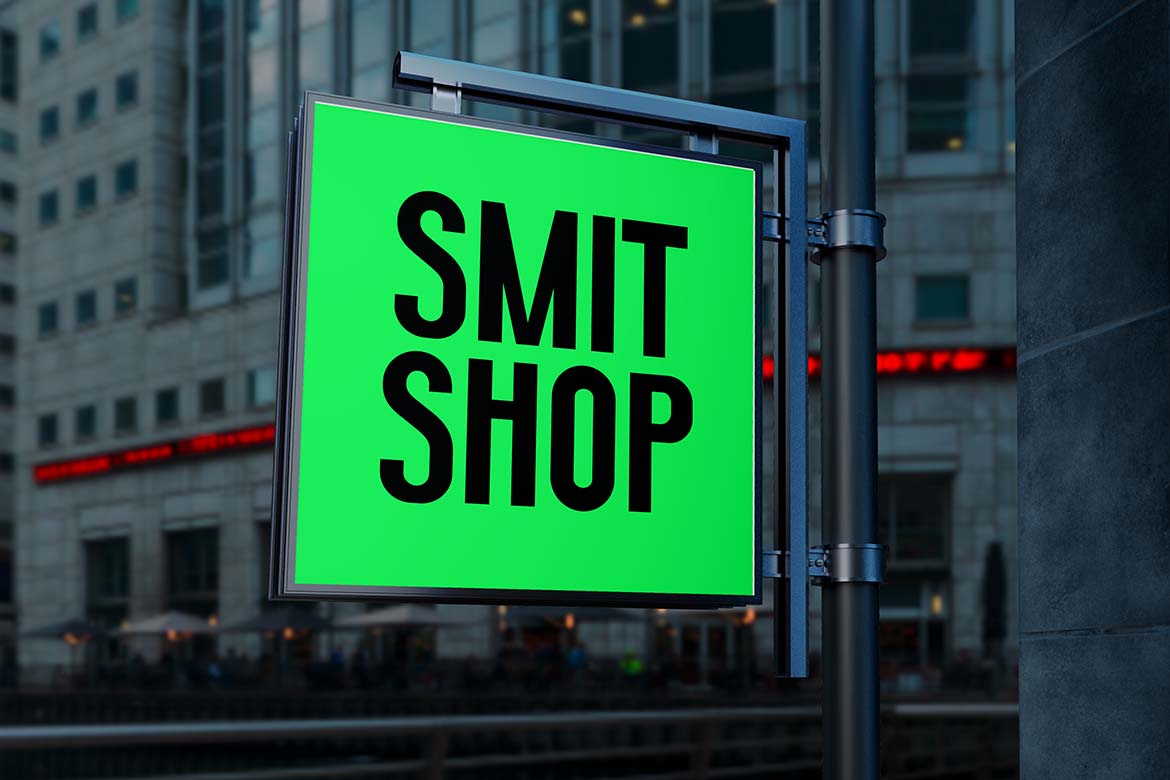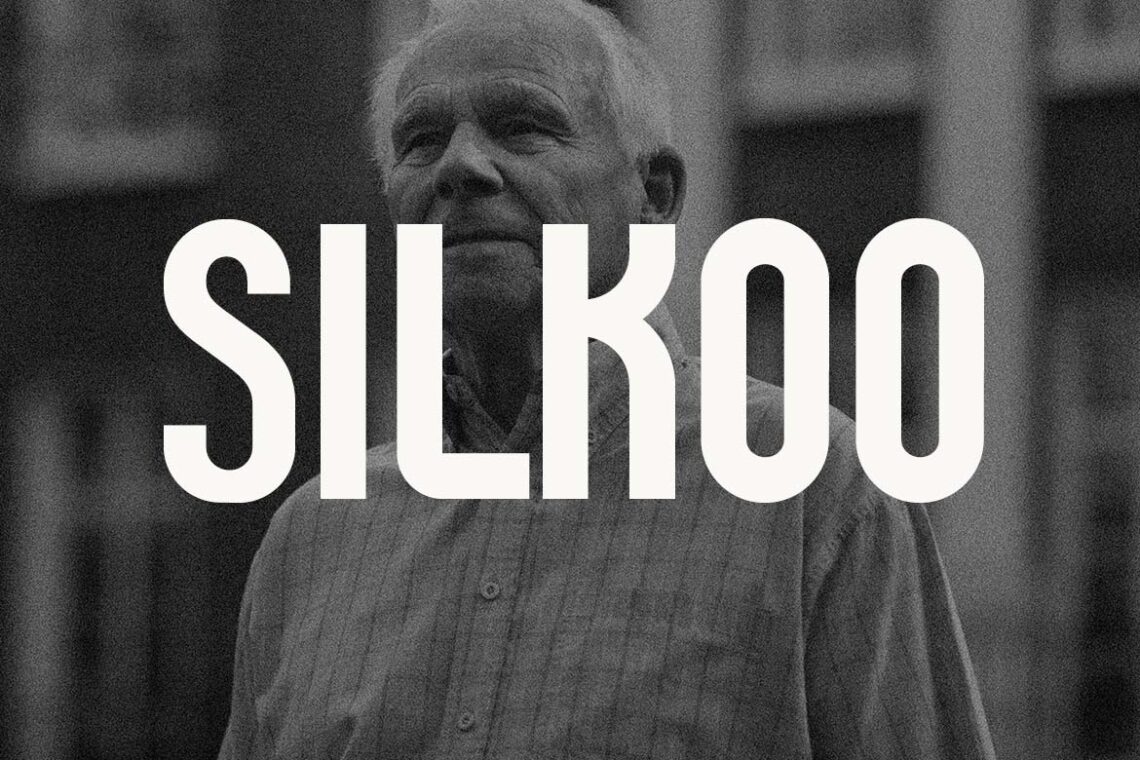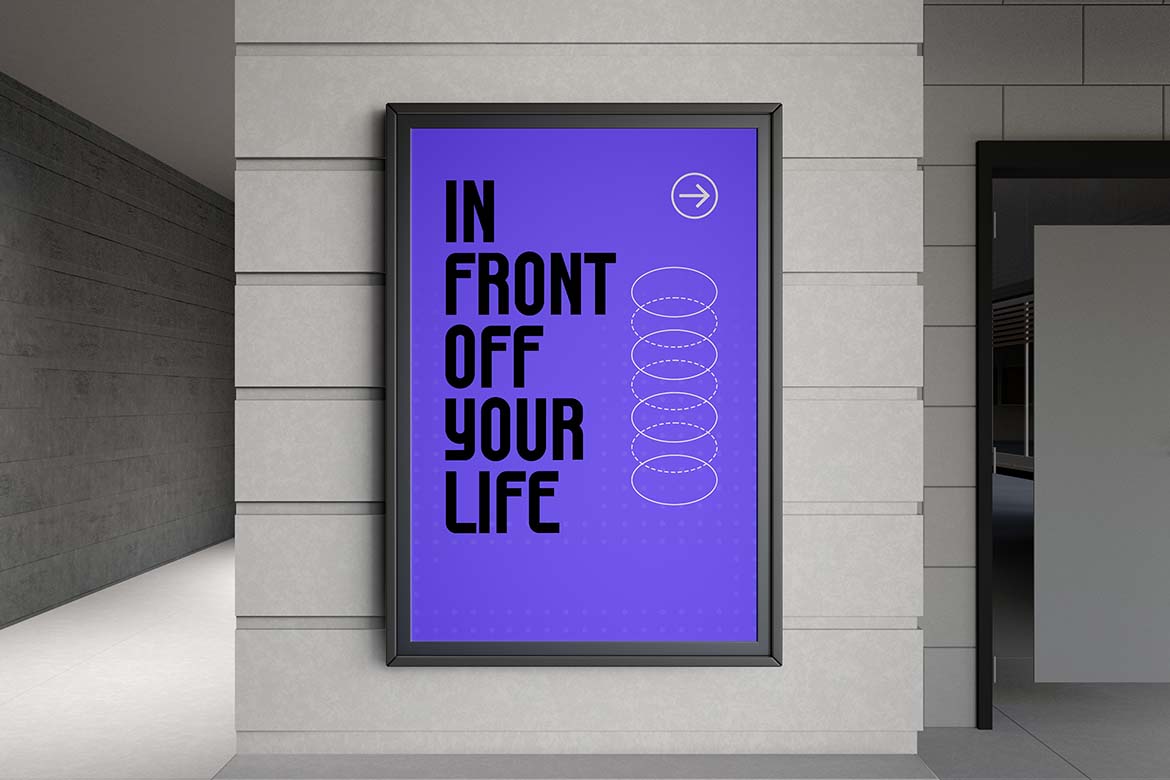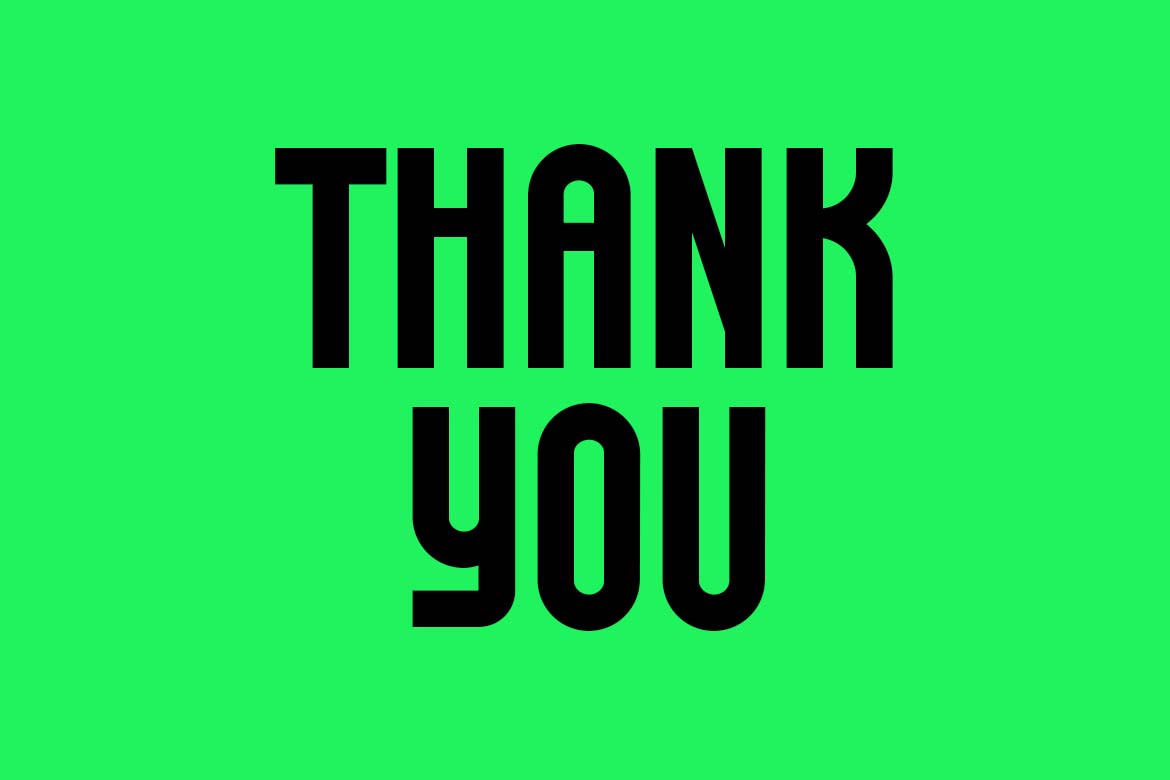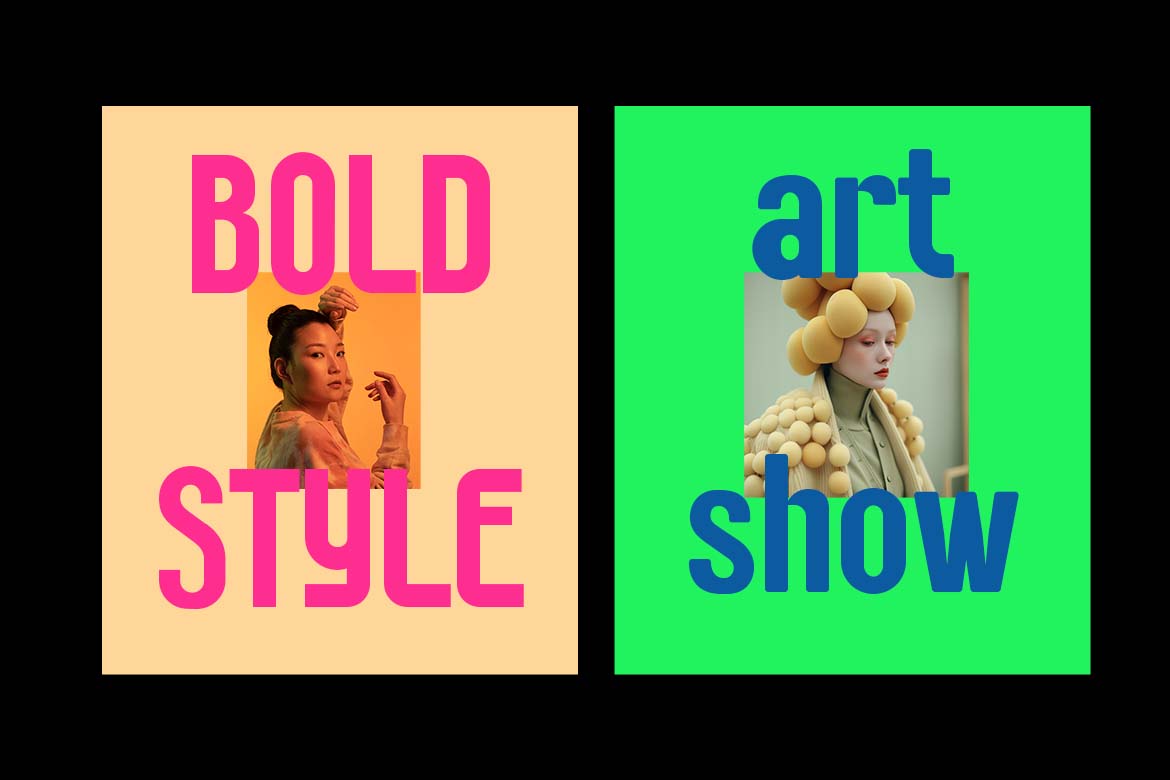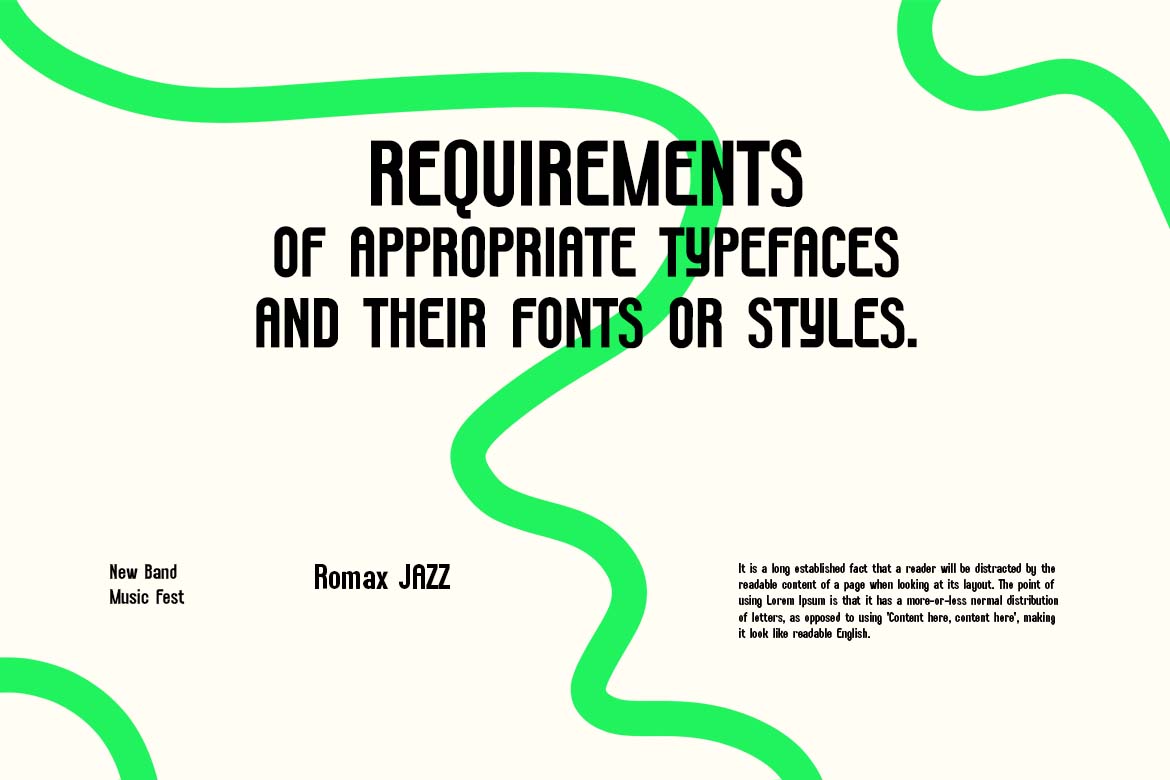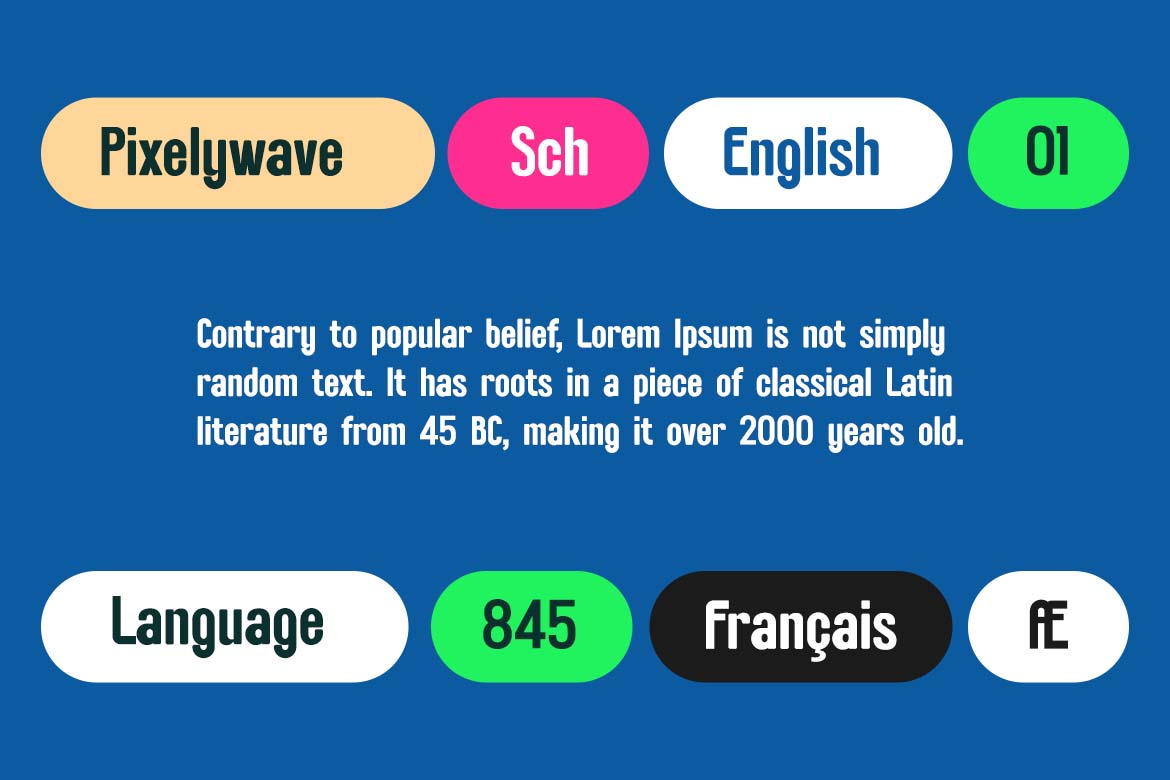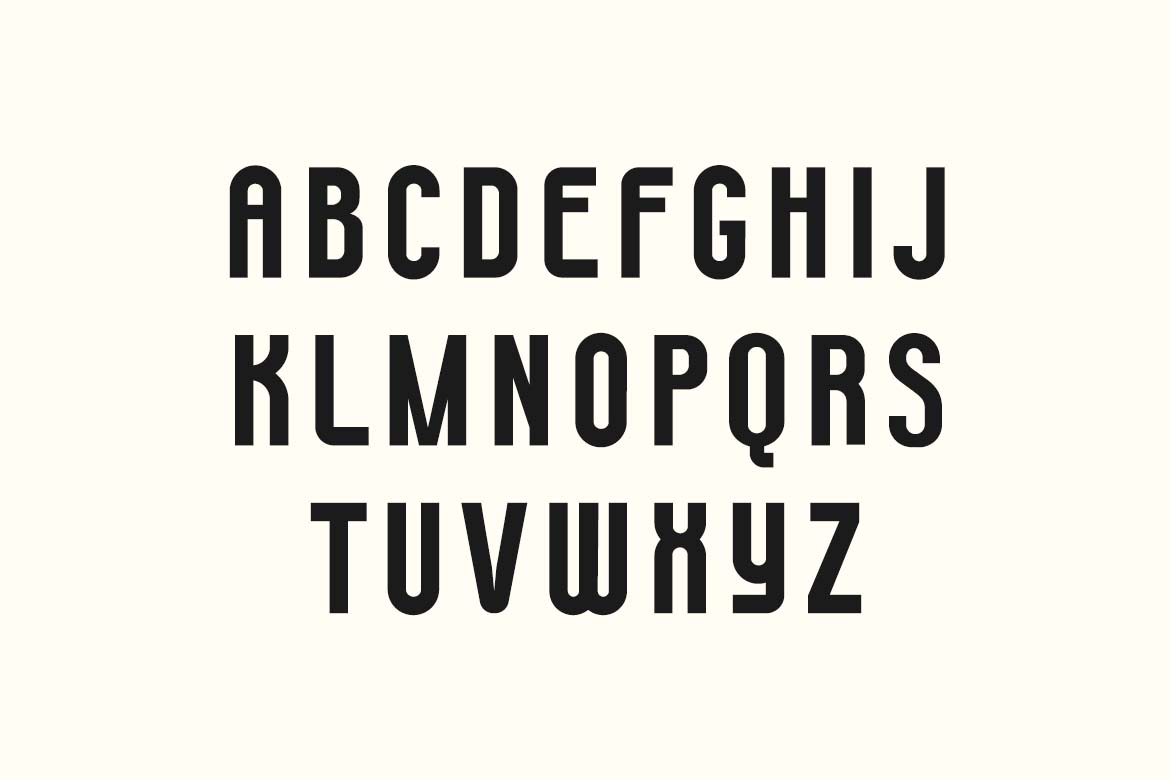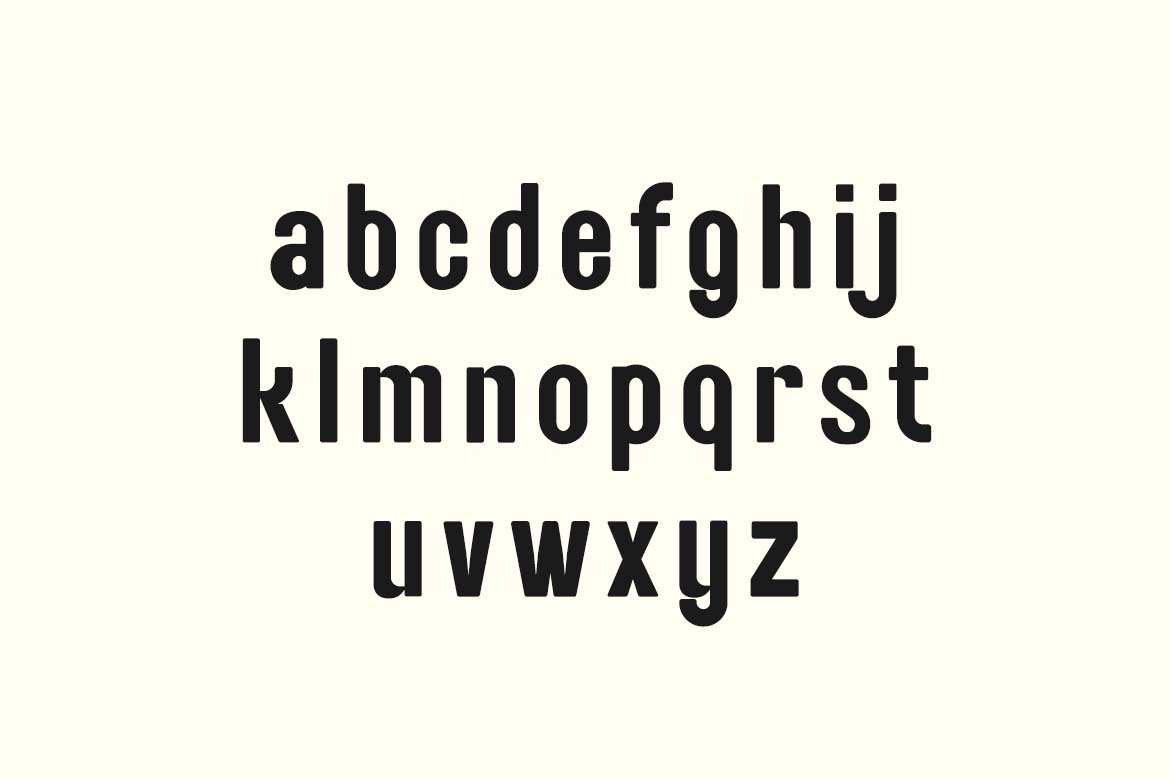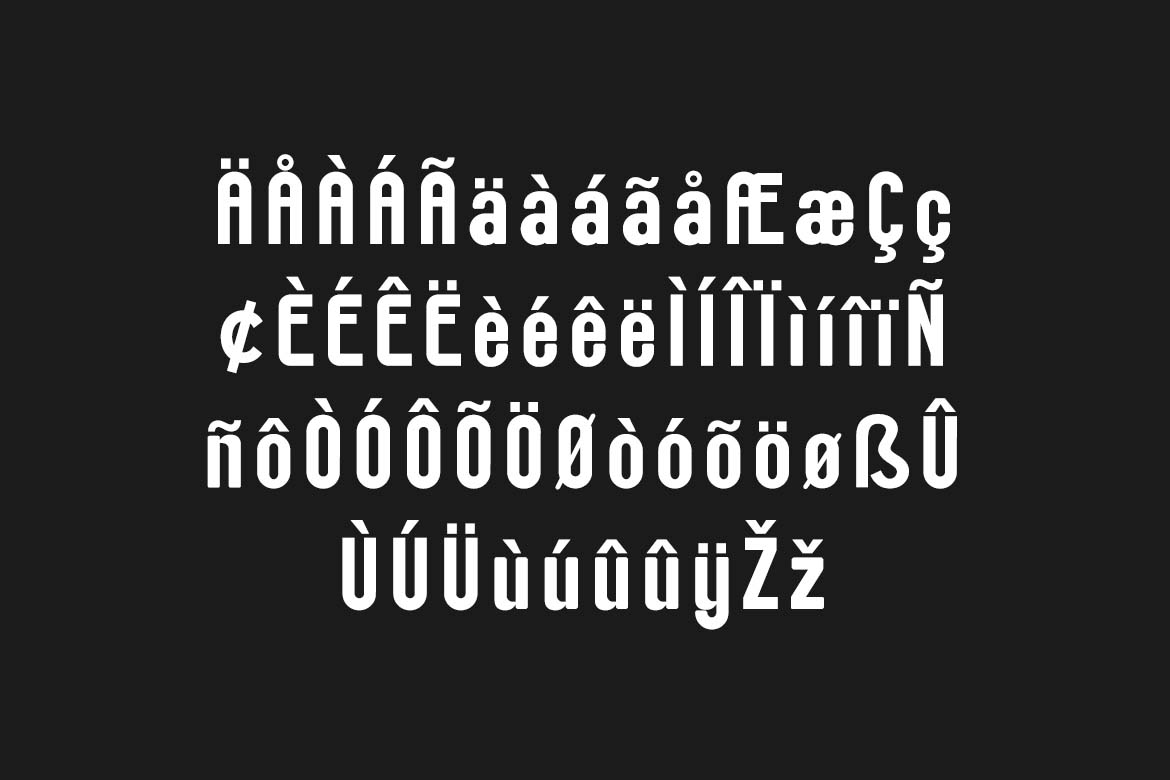
Boldway Edge Condensed Display Font
Boldway Edge Condensed Display Font. The modern display font feels beautiful classy, elegant, and stylish. This font is ideally suited for a wide variety of projects, such as signature, stationery, logo, wedding, typography quotes, magazine or book covers, website headers, branding, and more. Also, fashion-related branding or editorial design displays both masculine and feminine qualities.